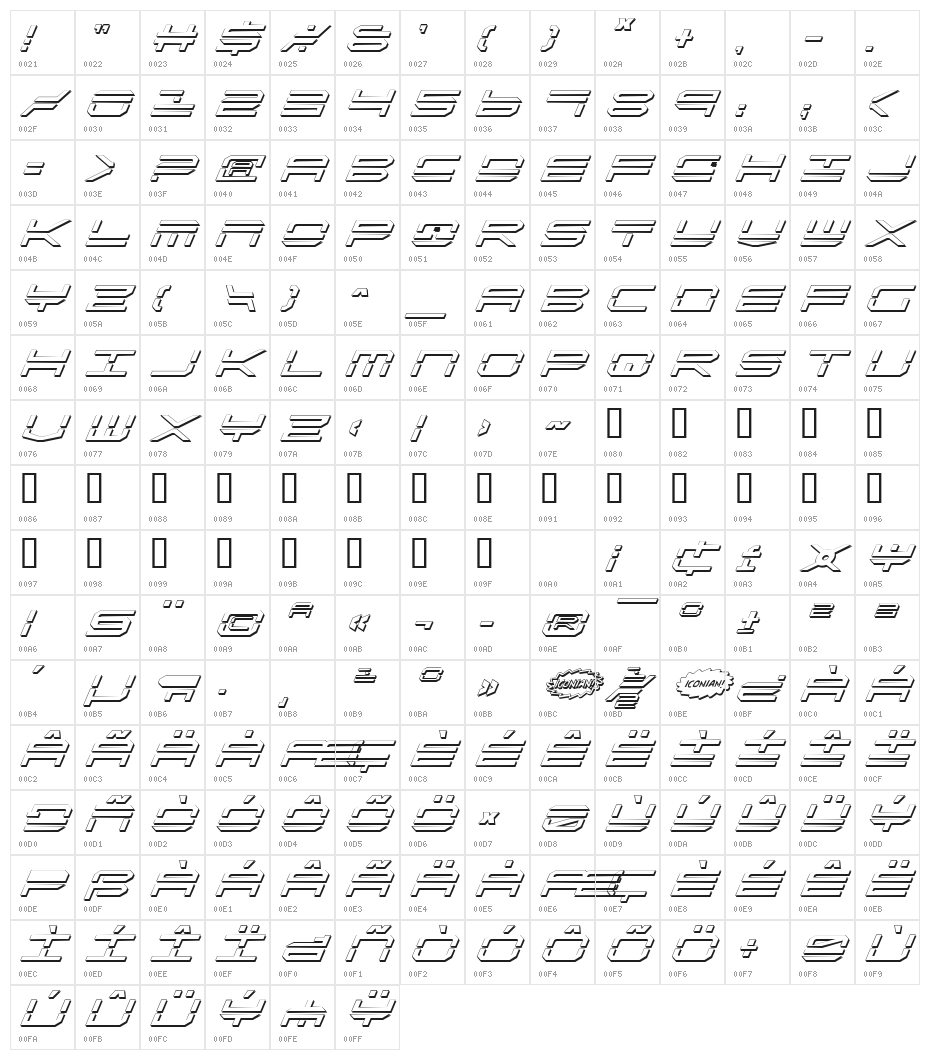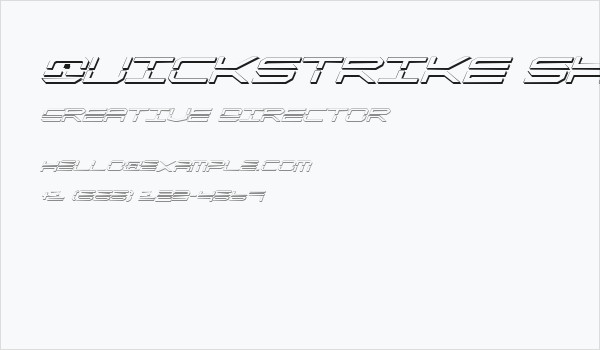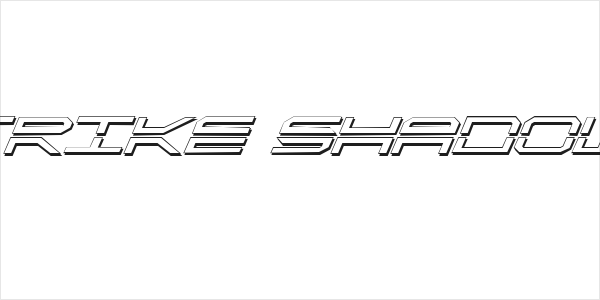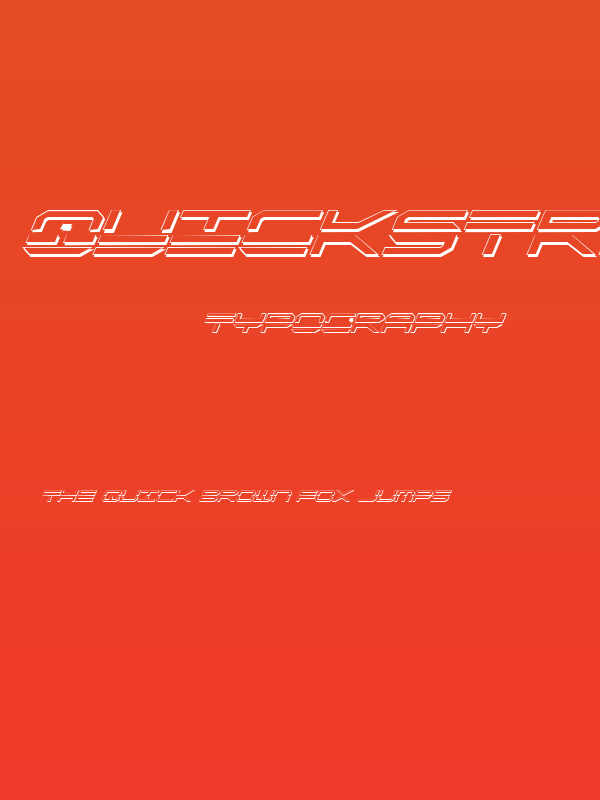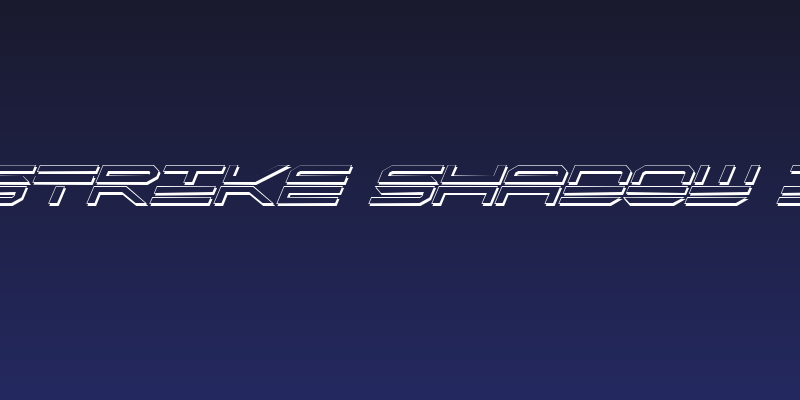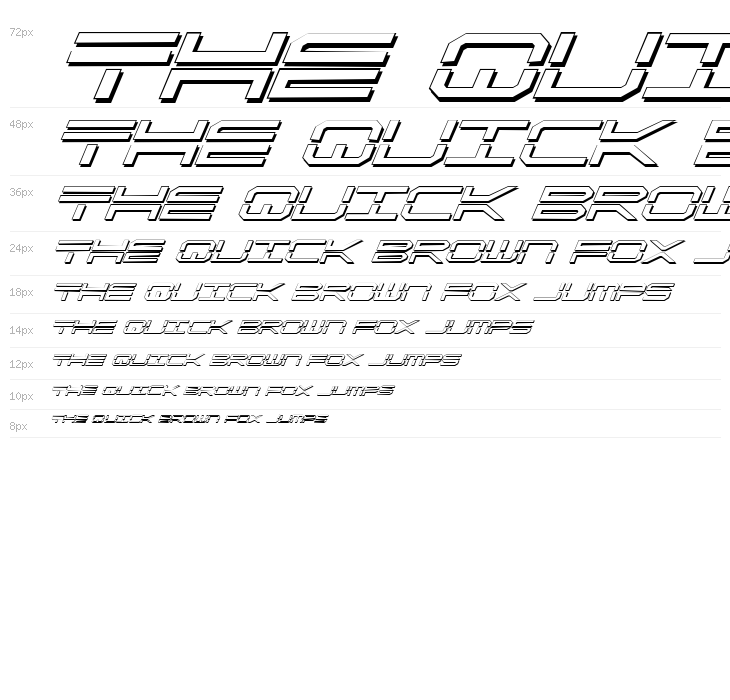
QuickStrike Shadow Italic Font
QuickStrike Shadow Italic Description
This font features a dynamic and futuristic design with a shadow effect that gives it a three-dimensional appearance. The characters are italicized, adding a sense of motion and speed. The geometric structure is consistent throughout, with sharp angles and clean lines that create a modern and edgy look. The uppercase and lowercase letters maintain a uniform style, while the numerals and special characters complement the overall aesthetic. This font is ideal for projects that require a bold and impactful visual statement.
| Proposed Projects | Ideal for sci-fi themed designs, video game titles, tech branding, and dynamic posters. |